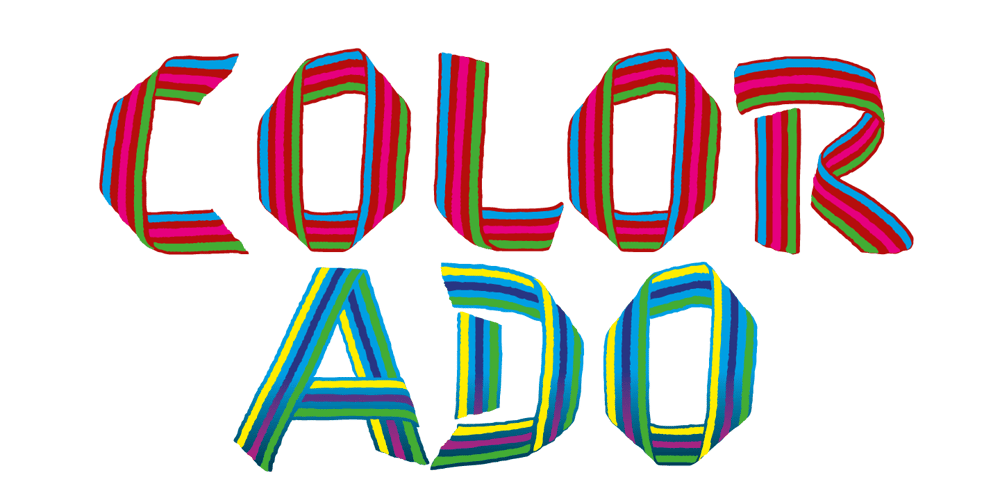
Colorado Font Family was designed by Julia Sysmäläinen, Jürgen Sanides and published by Juliasys. Colorado contains 6 styles and family package options. Nature is fond of stripes. Animals have them, plants have them and the rainbow has them. Besides being beautiful, stripes in nature have various origins and functions. But only Homo sapiens gave them symbolic meaning. In the American flag, the 13 stripes symbolize the 13 colonies that declared independence from Britain. In the French “Tricolour” flag, they represent Paris and the king of France. And in Russia’s “Georgiyevskaya lenta,” they symbolize the death and resurrection of St. George, the dragon-slayer. The font family COLORADO, named after the beautifully striped Colorado potato beetle, can be used to construct all kinds of symbolic or just beautiful messages. And thankfully, you need no OpenType diploma to do this. To get your texts multi-striped and multicolored, follow this simple procedure: Write the message with one of the COLORADO fonts and apply a color. Then copy and paste in place, and apply a second font and color. Repeat this again if wanted – and the masterpiece is done. COLORADO’s language support covers about 100 languages. It has a Western European, a Central European and an Extended Cyrillic character set.